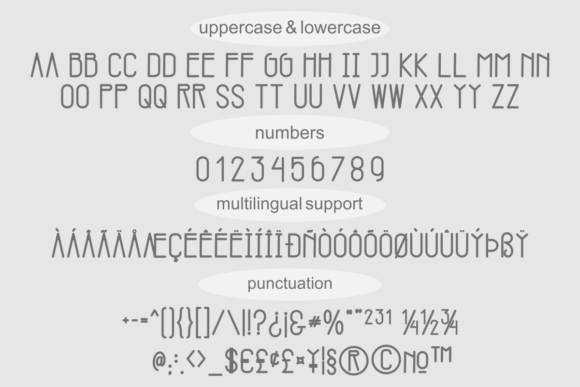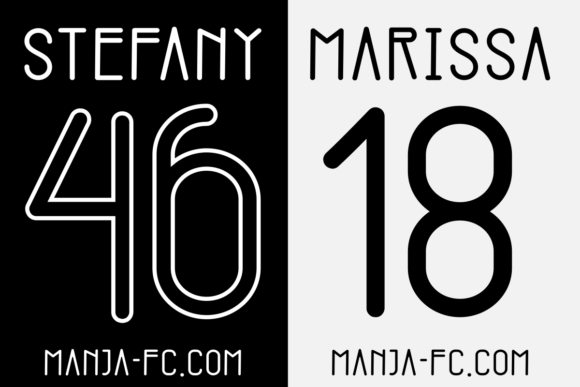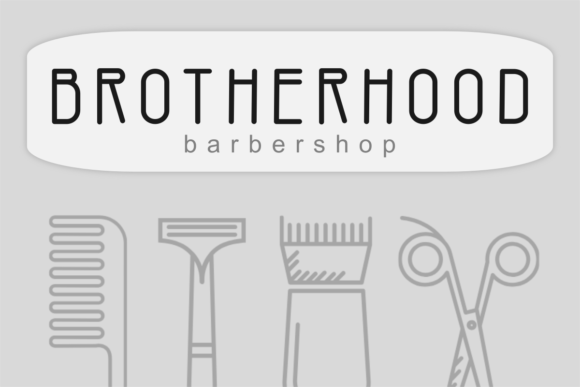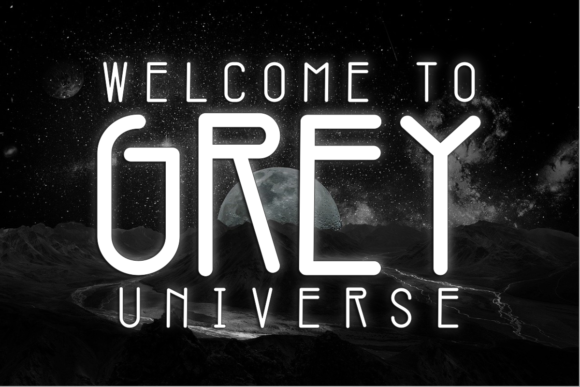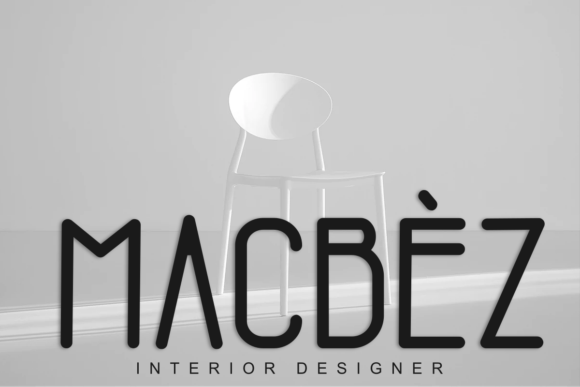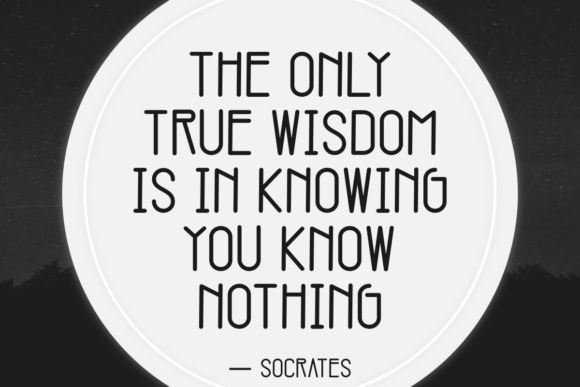
Introduction to Garvey Font
Garvey is a minimal and authentic sans serif font.
Suitable to a wide variety of designs due to its neat and simple style, Garvey has the potential to become your favorite go-to font, no matter the occasion .
Key Features of Garvey Font
Garvey Font offers exceptional quality and versatility, making it a valuable addition to your design toolkit. Whether you’re creating for personal projects or commercial use, Garvey Font delivers professional results.